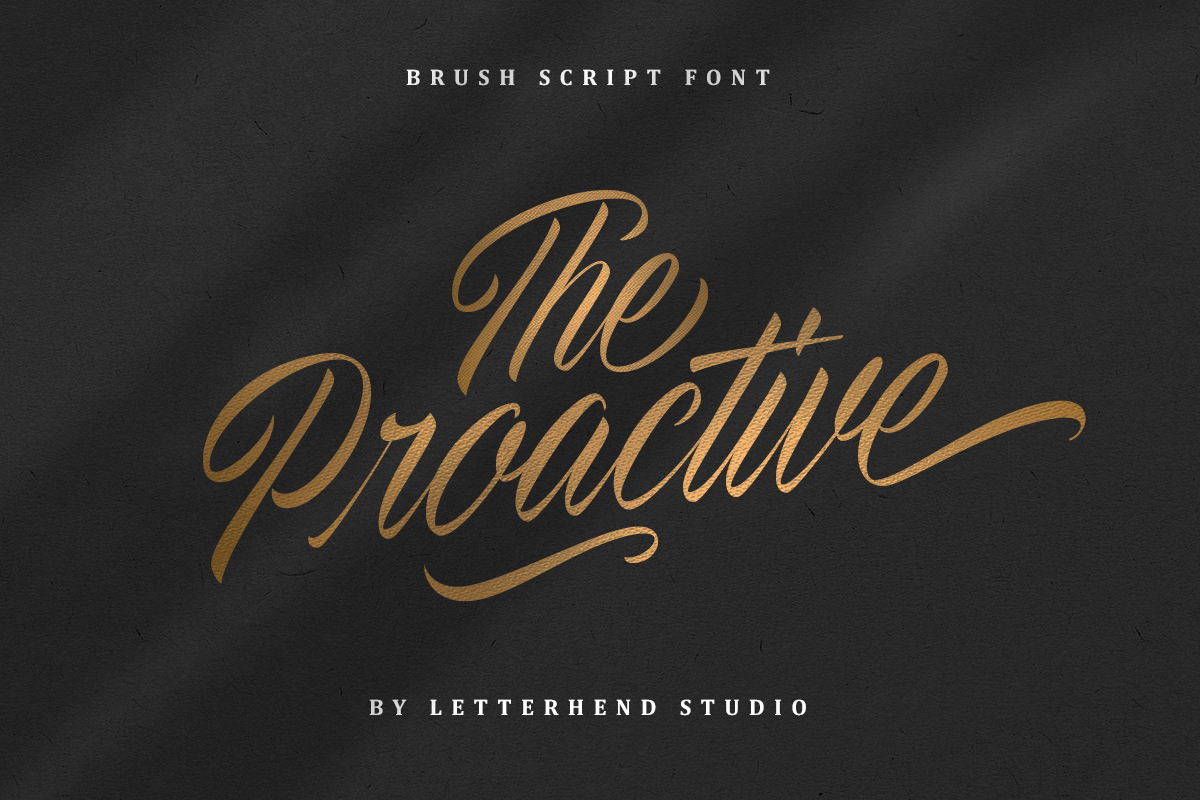
The Proactive Script Font
The Proactive Script Font is perfect for dynamic business coaching materials, forward-thinking leadership presentations, innovative startup branding, action-oriented workshop graphics, progressive consulting firm logos, goal-driven productivity app interfaces, proactive wellness program signage, ambitious career development materials, forward-moving corporate communications, and initiative-focused educational resources. This energetic typeface brings forward momentum to success coaching businesses, leadership development organizations, proactive healthcare services, goal achievement platforms, and progressive professional training companies.
The Proactive Script Font is exciting because it embodies forward-thinking initiative and dynamic action through its energetically flowing script letterforms that convey movement and purposeful direction. The font features dynamic characters with confident strokes and progressive details that evoke the energy of taking initiative, the flow of continuous improvement, and the elegance of purposeful action moving toward success. Its distinctive construction demonstrates proactive leadership with carefully crafted flowing elements that create an immediate sense of forward momentum and positive change. The font's action-oriented presence and proactive authenticity make it perfect for brands seeking to communicate initiative, forward progress, and dynamic leadership in their visual communications.
The Proactive Script Font family includes various action-oriented styles: Light Script, Regular Script, Bold Script, Dynamic Script, Flow Script, Forward Script, Progressive Script, Action Script, Condensed Script, Extended Script, Leader Script, and Initiative variants. Each family member maintains the core proactive DNA while offering different levels of dynamic energy for diverse forward-thinking design applications. The comprehensive font collection ensures consistent progressive branding across leadership campaigns, action-focused products, and initiative-driven communication materials.
The Proactive Script Font provides designers with an exceptional tool for creating authentic and dynamically engaging visual communications. This remarkable typeface seamlessly blends proactive aesthetics with contemporary functionality, making it ideal for both digital leadership platforms and premium action-themed print materials. The font's carefully crafted dynamic details and forward-moving rhythm create memorable visual experiences that resonate with audiences seeking progress, initiative, and positive life changes.
Whether you're creating leadership brand identities, designing proactive marketing materials, developing action-focused website headers, or crafting initiative-driven promotional campaigns, The Proactive Script Font delivers outstanding dynamic appeal and leadership authenticity. The font's distinctive forward-moving personality excels in leadership logos, progressive packaging design, action applications, and development projects where proactive initiative and forward momentum are essential.